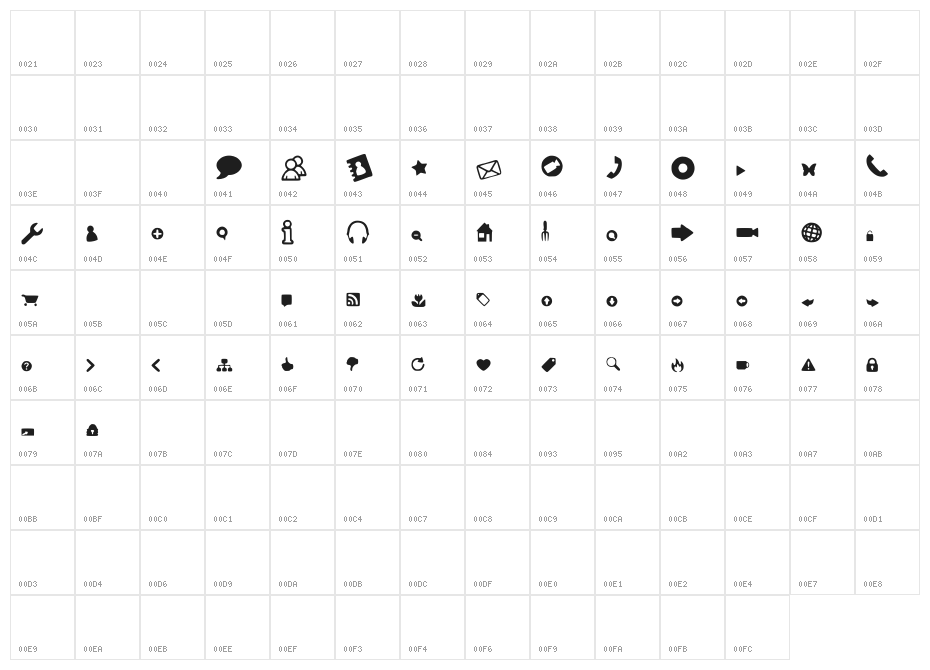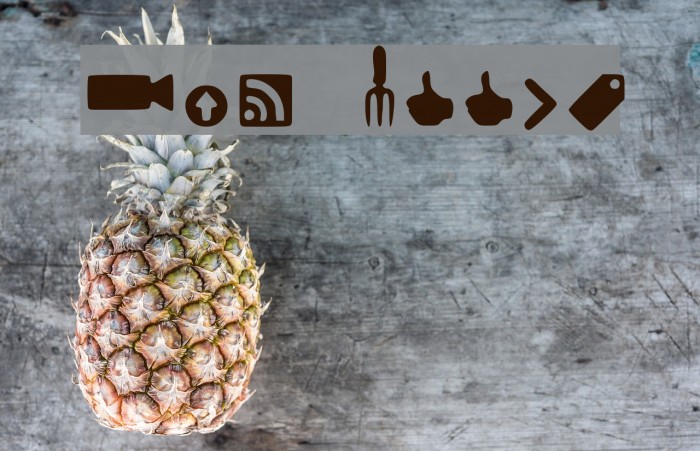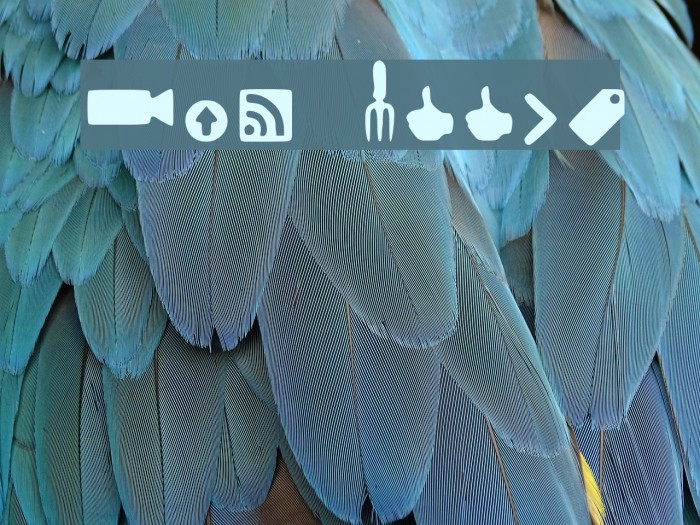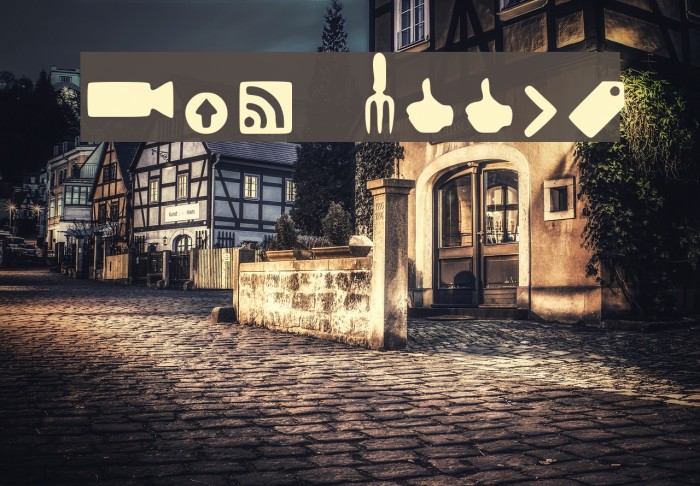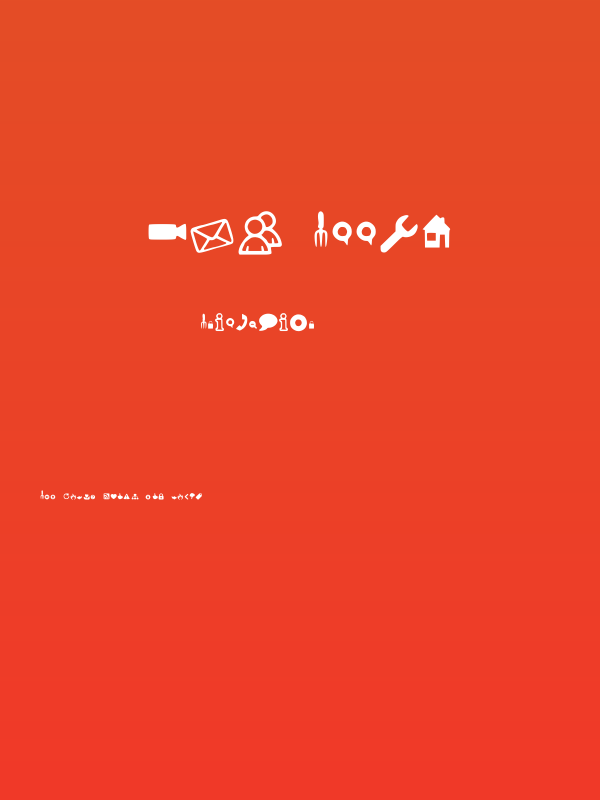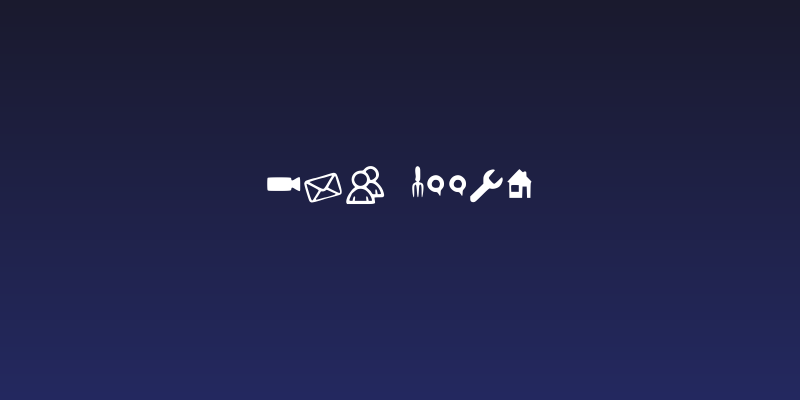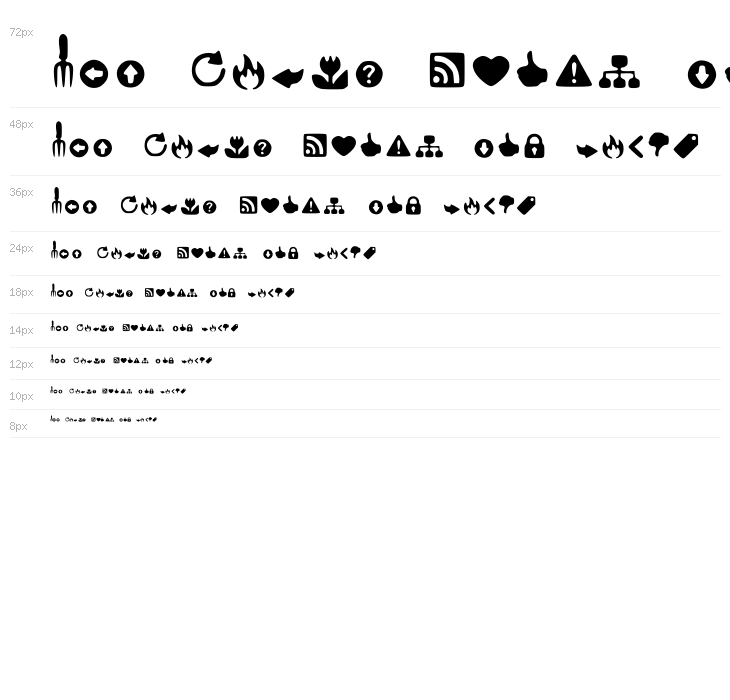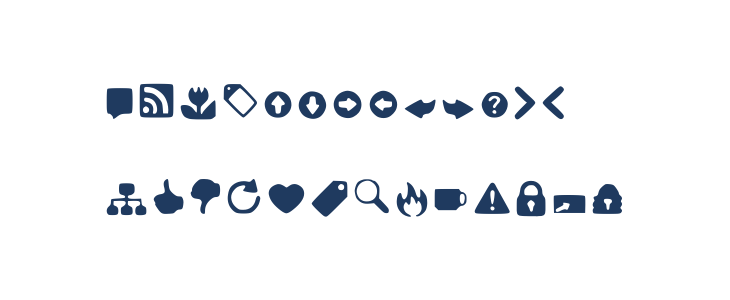
Web Tools Font
Web Tools Description
A collection of bold, solid black web and interface icons featuring common symbols such as chat bubbles, contacts, mail, navigation arrows, shopping cart, locks, and various UI elements. The icons are simple, geometric, and highly legible, designed for clarity at small sizes.
| Overall Style | Modern, Minimalist |
| Use Case | Icons, UI elements, navigation, buttons |
| Proposed Projects | Web applications, mobile apps, dashboards, user interfaces, infographics, presentations. |